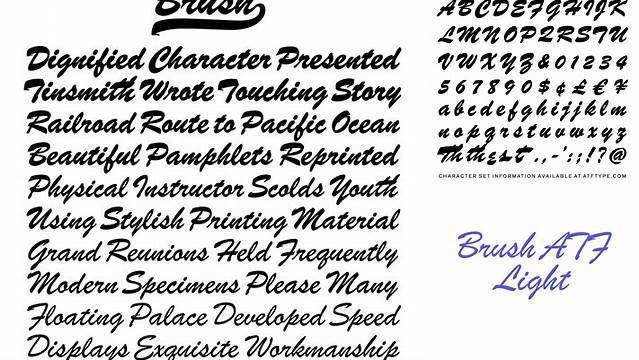
Brush ATF Font: Free Download, Uses & How-To Guide
Brush ATF Font: Free Download and Creative Applications
Hey guys! Are you on the hunt for a cool, stylish font that can add a touch of personality to your designs? Look no further! The Brush ATF font, a popular choice among designers, offers a unique aesthetic that's perfect for a wide range of creative projects. And the best part? You can find a Brush ATF font free download to get started! This article will dive deep into the world of the Brush ATF font, exploring its features, its various applications, and, of course, how to get your hands on a free download.
What Makes Brush ATF Font Special?
Brush ATF is more than just a typeface; it's a statement. Its distinctive characteristics make it stand out in a crowded design landscape. Imagine a font that captures the raw, energetic strokes of a brush, giving your text a hand-painted feel. That's precisely what Brush ATF does! It’s a script font, which means its letters are connected, creating a sense of flow and elegance. Script fonts are often used to add a touch of sophistication or a personal feel to a design. The Brush ATF font, however, takes it a step further with its dynamic and expressive style. The font’s design mimics the natural variations you’d see in real brush strokes. This means that the thickness of the strokes varies, and the characters have a subtle irregularity, giving them a realistic and handcrafted look. This level of detail is what sets Brush ATF apart from many other fonts. It’s a font that doesn't just look good; it tells a story. When you use Brush ATF, you’re not just writing words; you're adding a visual element that can greatly enhance the overall impact of your message. The font exudes a sense of creativity and artistry, and that can be incredibly appealing, especially in a world saturated with generic design elements. Whether you’re designing a logo, creating marketing materials, or working on personal projects, the Brush ATF font has the potential to elevate your work. One of the key things that make Brush ATF so popular is its versatility. It can be used effectively in a variety of design contexts. Its inherent aesthetic makes it suitable for both digital and print designs. You can apply this font to anything from website headers to posters and social media graphics to product packaging, allowing you to infuse your projects with a unique and eye-catching style. The availability of a Brush ATF font free download makes it even more accessible. This means that you don't need to break the bank to get your hands on this fantastic font. You can experiment with it, see how it fits your style, and incorporate it into your projects without any financial commitment. This makes it ideal for hobbyists, students, and small businesses looking to create professional-looking designs on a budget. Another aspect to consider is its legibility. While script fonts can sometimes be challenging to read, especially in smaller sizes or longer blocks of text, Brush ATF is designed to maintain readability. The clear and distinct shapes of the letters help ensure that your message remains easily understood, even at a glance. This balance between style and functionality is what makes Brush ATF a valuable asset to any designer’s toolkit.
Creative Applications of the Brush ATF Font
Let’s explore the exciting world of how you can creatively use the Brush ATF font in your designs. The versatility of this font makes it a fantastic choice for a wide array of projects. One of the most popular applications is in logo design. The unique hand-painted aesthetic adds a personal touch and a sense of artistry that can make your brand stand out. Imagine a logo that looks like it was created with real brush strokes – it exudes creativity and authenticity. It's perfect for businesses that want to convey a sense of craftsmanship, creativity, or a personal connection with their customers. Consider the possibilities for businesses like artists, designers, boutiques, and cafes. The Brush ATF font can communicate a message of quality and uniqueness. For example, a boutique could use the font to create a logo that reflects their brand's values and attracts their target audience. The font’s expressive style helps communicate these messages. Beyond logos, the Brush ATF font is ideal for creating eye-catching marketing materials. Think about social media graphics, posters, flyers, and advertisements. The font immediately grabs attention and invites viewers to engage with the content. Whether you're promoting a product, service, or event, the dynamic nature of the font can help you make a lasting impression. The font's character adds a touch of style and creativity to your posts. Consider using it for headers, headlines, or quotes to make your message more engaging. Using the Brush ATF font in your web design can also create a stunning and unique experience. Imagine the font as a header for your website. It can be used for headings, subheadings, or even for short snippets of text. It adds visual interest and helps your website stand out from the crowd. The elegant and flowing script can create a sense of sophistication. The goal is to create an inviting and immersive experience for your visitors. Moreover, the font is ideal for creating stylish invitations, greeting cards, and other stationery designs. Whether it’s a wedding invitation, a birthday card, or a thank-you note, the Brush ATF font can add a personal touch. This can be a great way to create memorable experiences for your loved ones. Because of its unique style, the font adds a sense of elegance and style to any occasion. When designing with the Brush ATF font, consider the following. First, pair it with fonts that complement it well. Since it's a script font, it's best to pair it with simple, clean sans-serif or serif fonts for body text. This will ensure readability and create a balanced design. Second, think about the overall tone and style of your design. The Brush ATF font works best when you want to create a creative or a personal touch. The font's brush-stroke effect can be enhanced by adding the right colors, images, and graphic elements. Finally, make sure to adjust the size, spacing, and kerning of the font to ensure readability. With the right design techniques, the Brush ATF font can enhance your design's appeal, making it stand out.